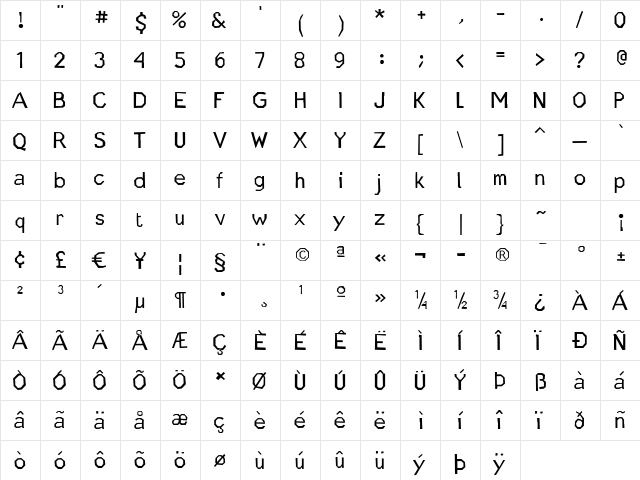
Quickstep Sans Regular
Design Context for Quickstep Sans Typeface
Quickstep Sans is a composed and adaptable typeface that performs quietly and consistently across a wide range of design contexts.
Pro Tip: Use Quickstep Sans in both headline and body roles to test its range before committing to a single application.